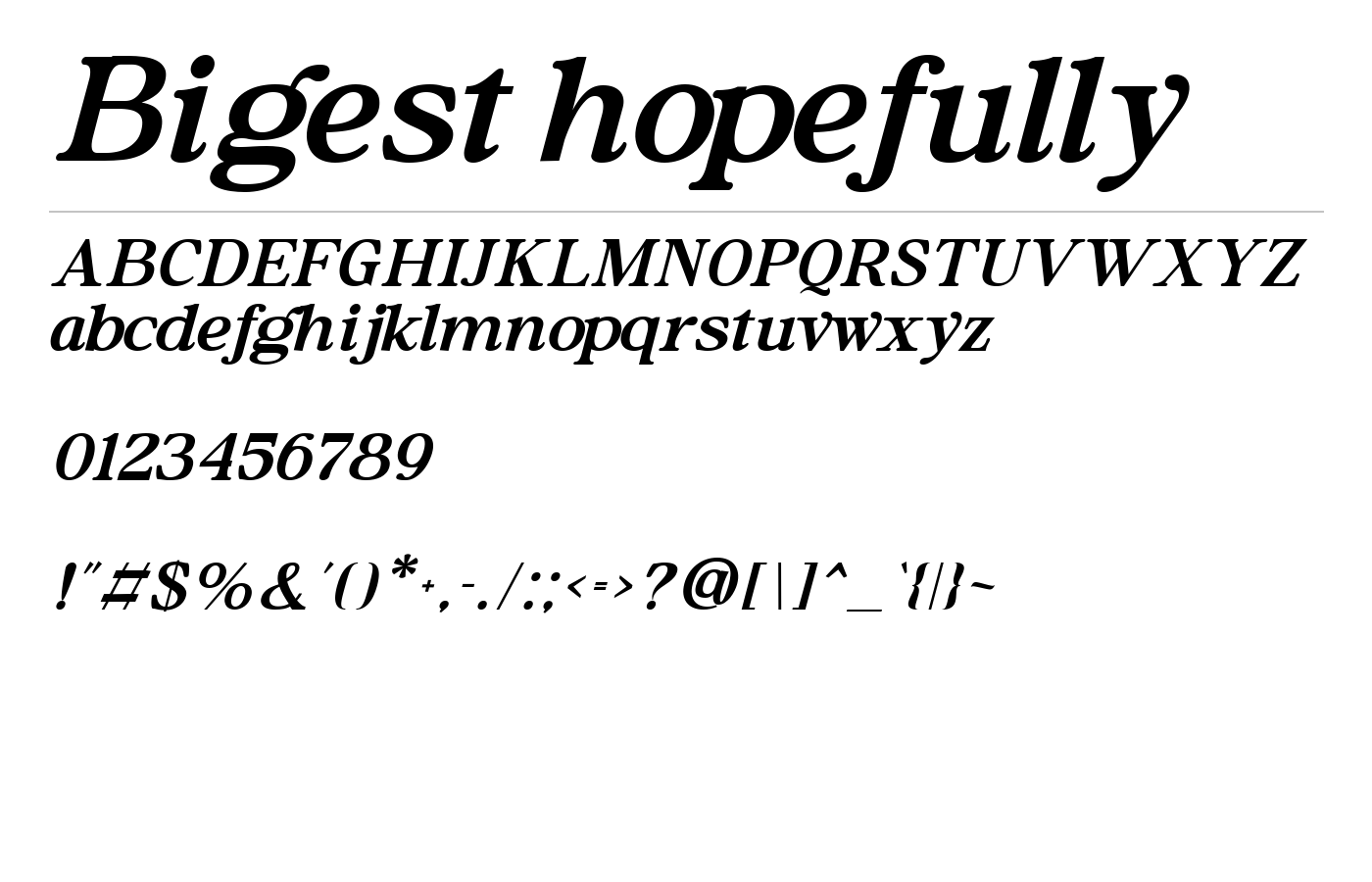
Bigest hopefully Font is an elegant serif typeface with a classic italic style that combines graceful curves and moderate stroke contrast, giving it a refined yet approachable feel. Its medium weight and balanced proportions make it ideal for sophisticated editorial content, invitations, and branding that aims to convey tradition with a touch of warmth. This font works beautifully for headlines and body text where a timeless, stylish impression is desired.
Bigest hopefully Font